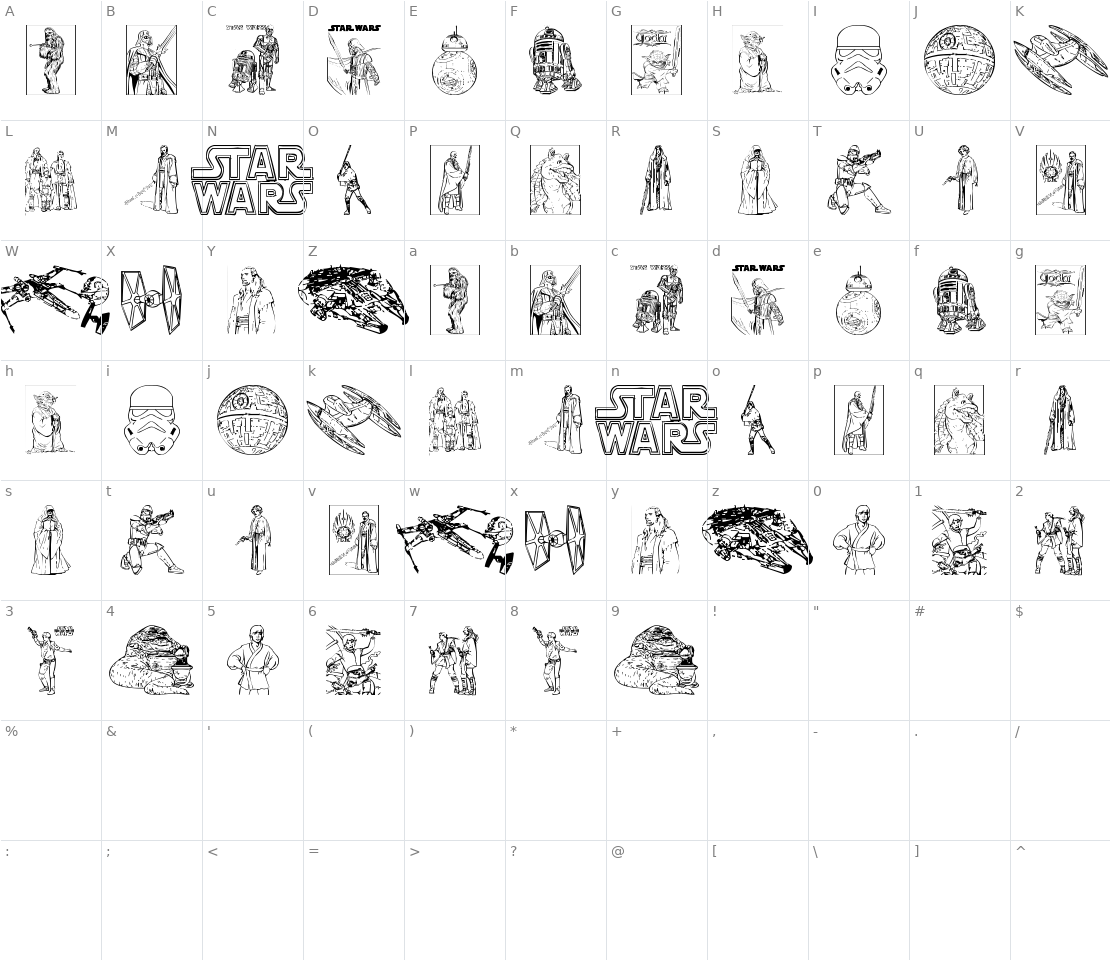
Lucas characters
by Ding Bang
Lucas characters is a dingbat font from Ding Bang featuring outline illustrations of characters and icons recognizable from the Star Wars universe. Rather than traditional letterforms, each key maps to a different figure or symbol, making it a handy resource for fan projects, themed invitations, or illustrative layouts where you need quick character silhouettes without reaching for clip art.